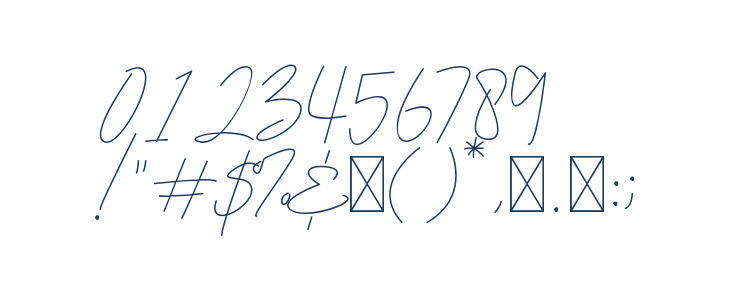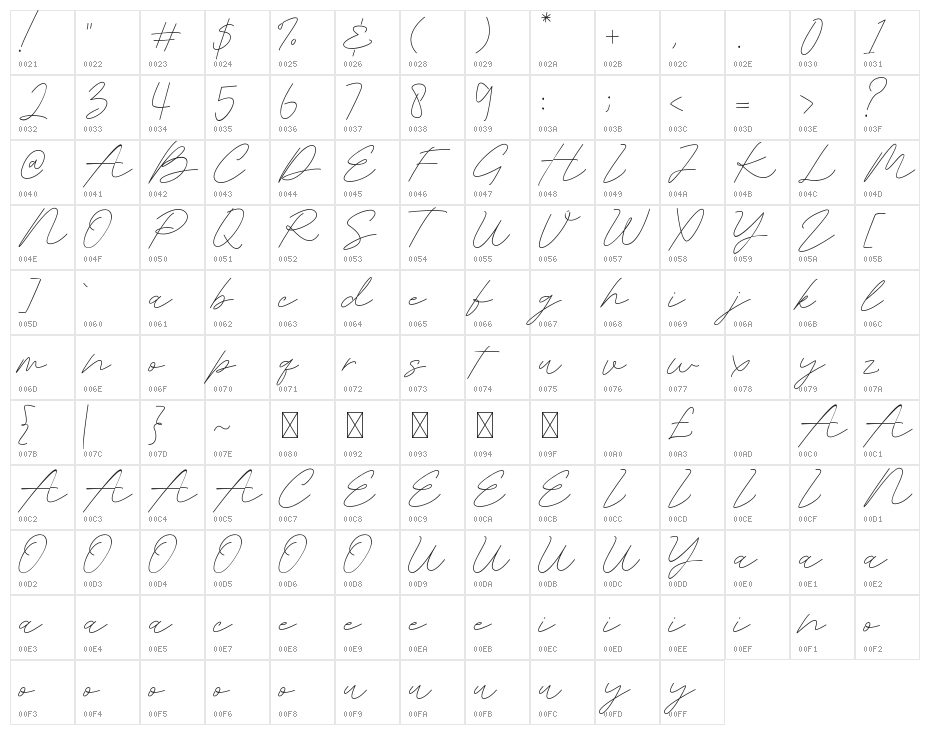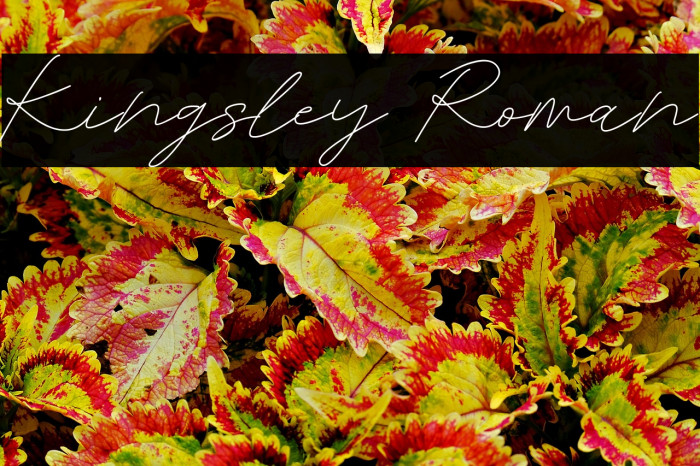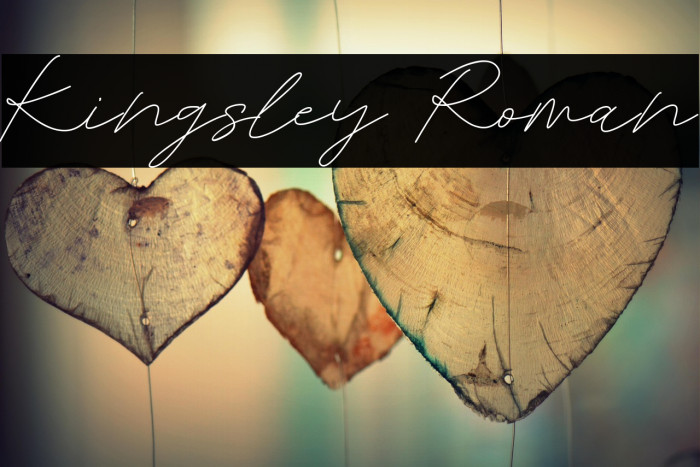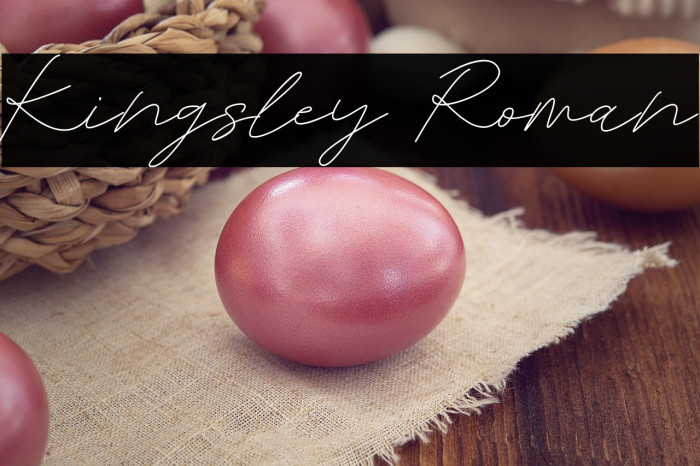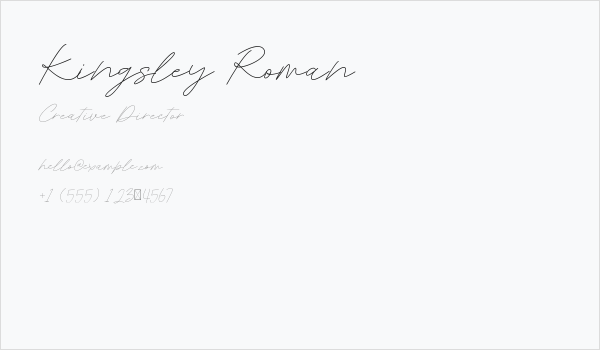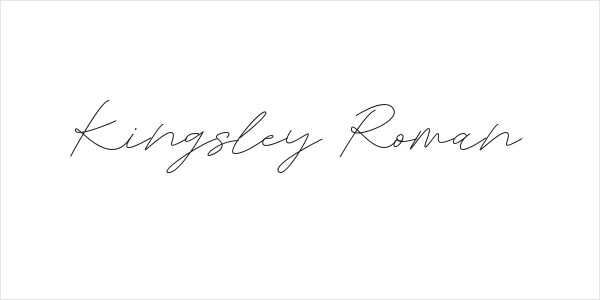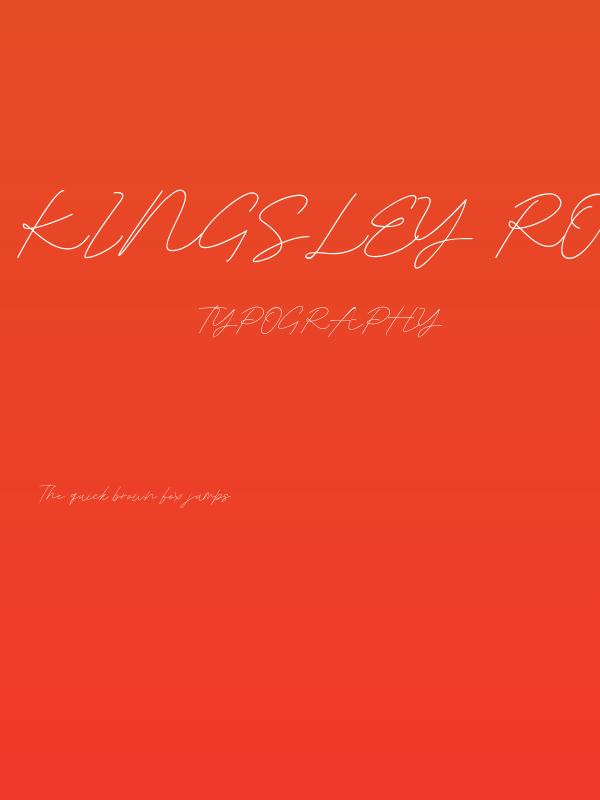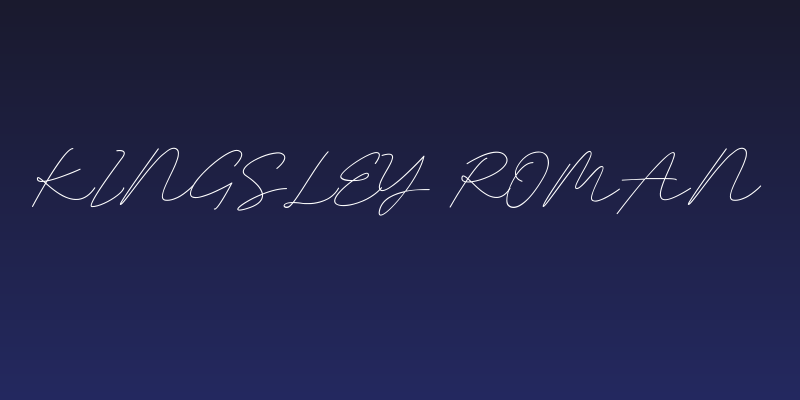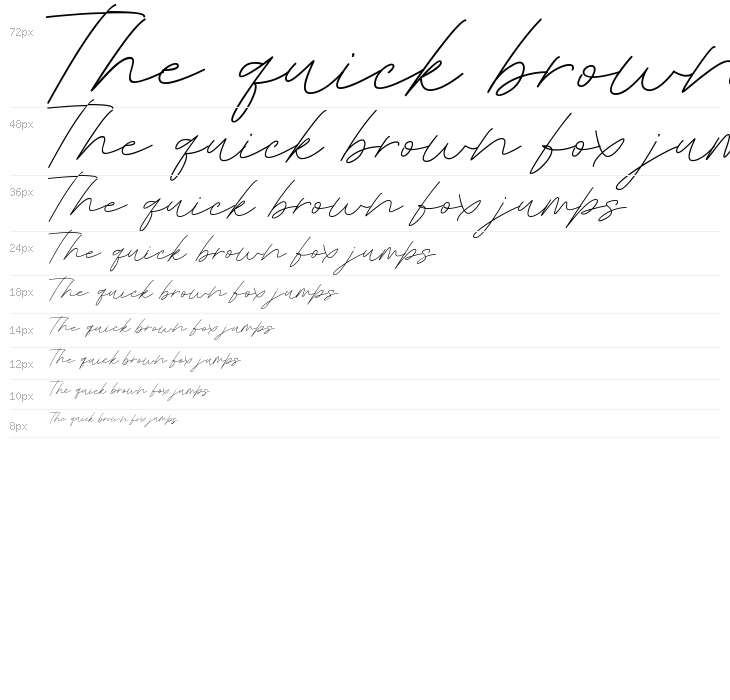
Kingsley Roman Font
Kingsley Roman Description
This font embodies a fluid and elegant cursive style, characterized by its smooth, flowing lines and a handwritten appearance. The uppercase and lowercase letters are connected, creating a seamless and continuous script that mimics natural handwriting. The characters are slightly slanted, adding to the dynamic and lively feel of the font. The strokes are thin and consistent, providing a delicate and refined look. This font is versatile, suitable for a variety of applications where a personal touch is desired. The numerals and special characters maintain the same fluidity, ensuring a cohesive look across all text elements.
| Overall Style | Elegant, Handwritten |
| Use Case | Invitations, Personal letters, Branding |
| Proposed Projects | Ideal for wedding invitations, personal letters, branding, and any project requiring a personal, elegant touch. |